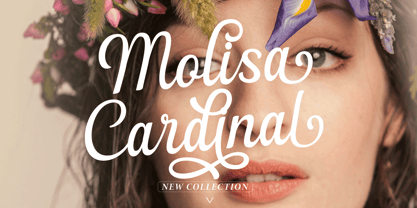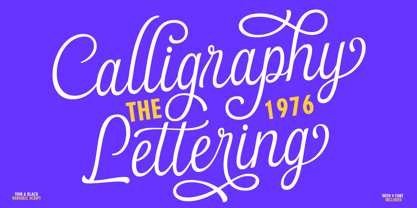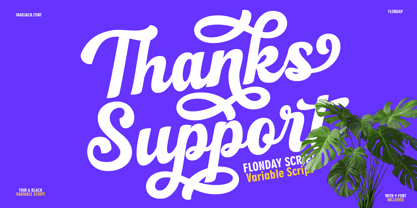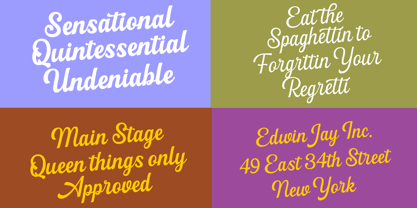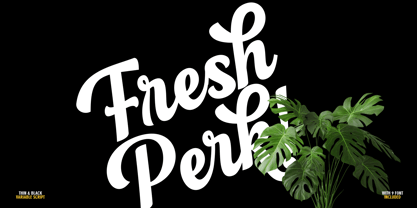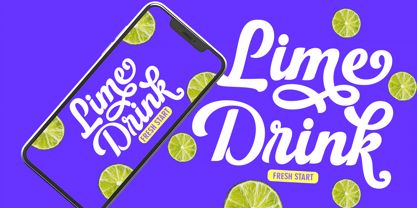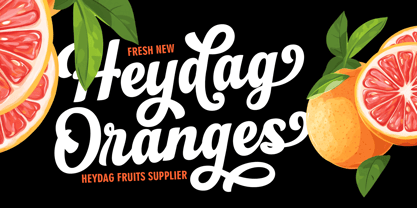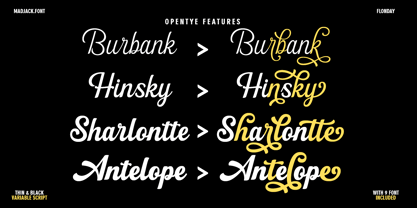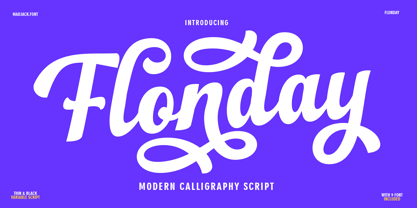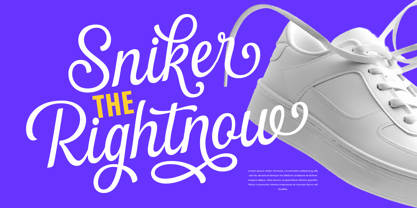
Flonday Script
The Flonday Script Font Family was designed by Zaki Muhammad and published by madjack.font. Flonday Script contains 10 styles and family package options.
Flonday – Modern Calligraphy Script
Flonday is a modern script typeface with a bold, refined, and elegant calligraphy style. This typeface is characterized by beautiful flowing letters with strong ligature and decorative touches, making it ideal for designs that require a personal, creative, and expressive feel.
Key Features:
Modern Calligraphy Style: Suitable for branding, wedding invitations, logos, product packaging, and social media.
Variable Script: Available in various thicknesses (thin to black).
9 Included Fonts: Provides flexibility in design exploration.
Bold and Elegant Design: Highlights the beauty of handwriting with strong visual clarity.
Decorative and Artistic: Uses many ornaments such as curved letter tails and distinctive ligatures.
Uses:
This typeface is ideal for:
Creative logo design
Greeting cards and invitations
Promotional posters
Magazine or blog headings
Handmade or fashion product labels